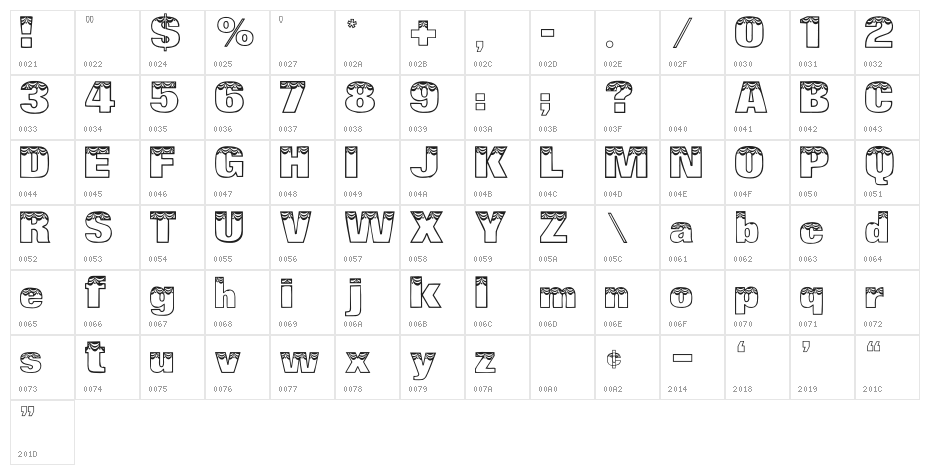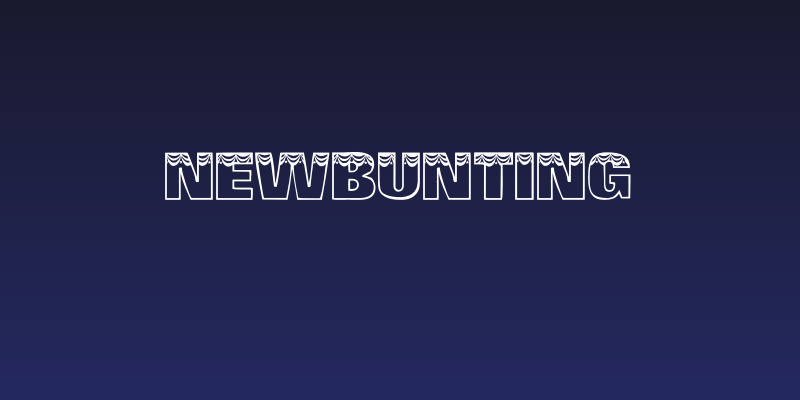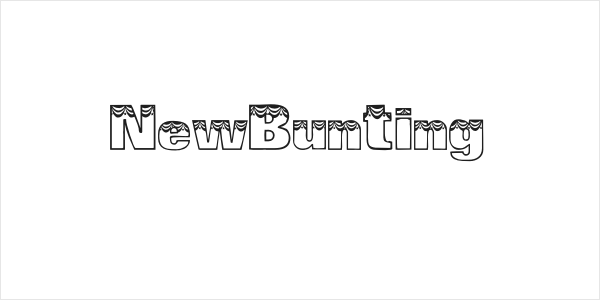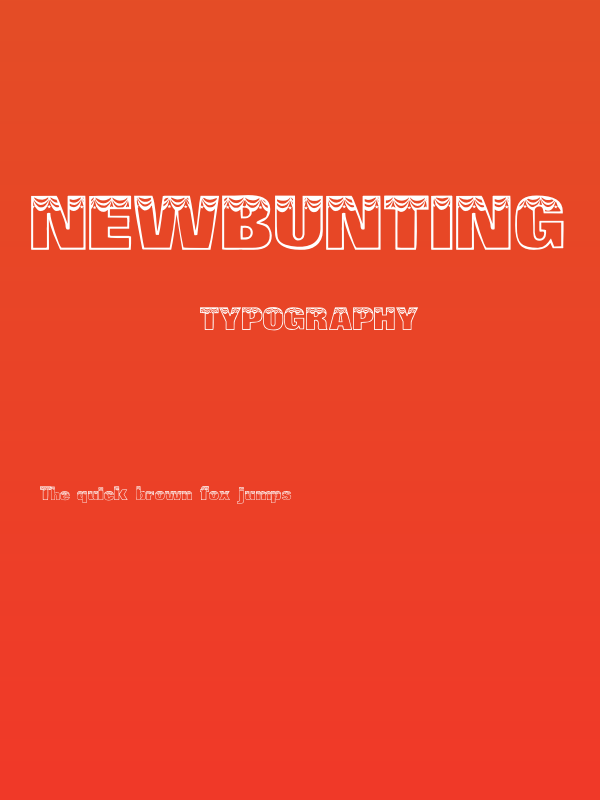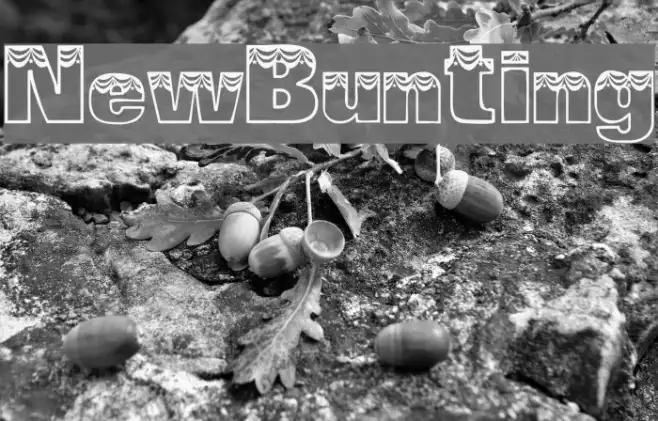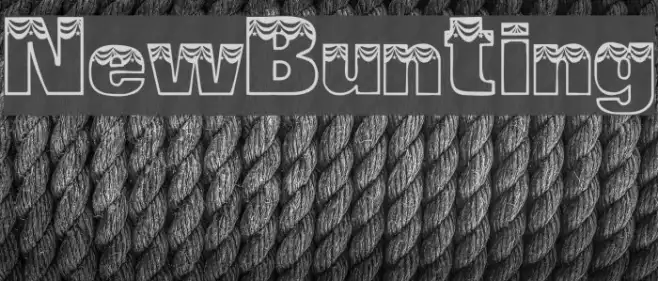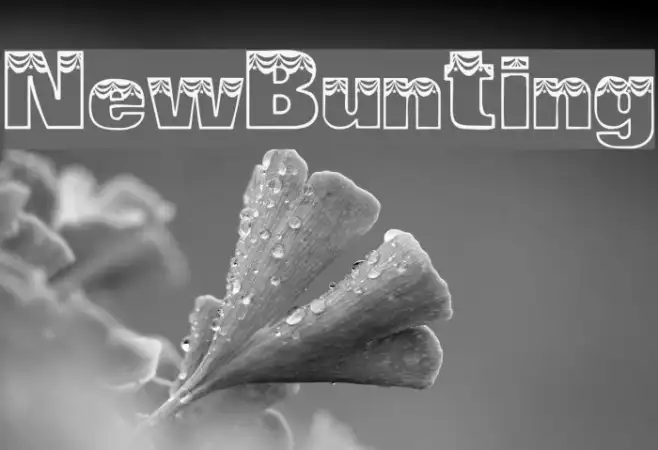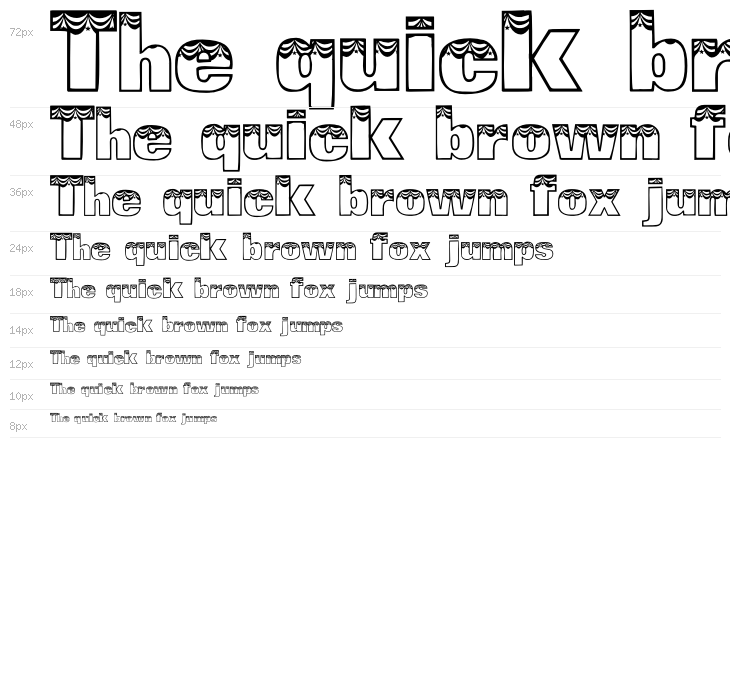
NewBunting Font
NewBunting Description
This font features a bold, decorative style with intricate patterns filling the interior of each character. The uppercase letters are particularly striking, with a strong presence and unique design elements that make them stand out. The lowercase letters maintain the same decorative theme, offering a cohesive look throughout the alphabet. Numbers and special characters are equally adorned with the same intricate patterns, ensuring consistency across all glyphs. The overall design is eye-catching and artistic, making it suitable for projects that require a bold and creative touch.
| Proposed Projects | Ideal for creative projects such as posters, event invitations, and branding materials that require a unique and artistic flair. |